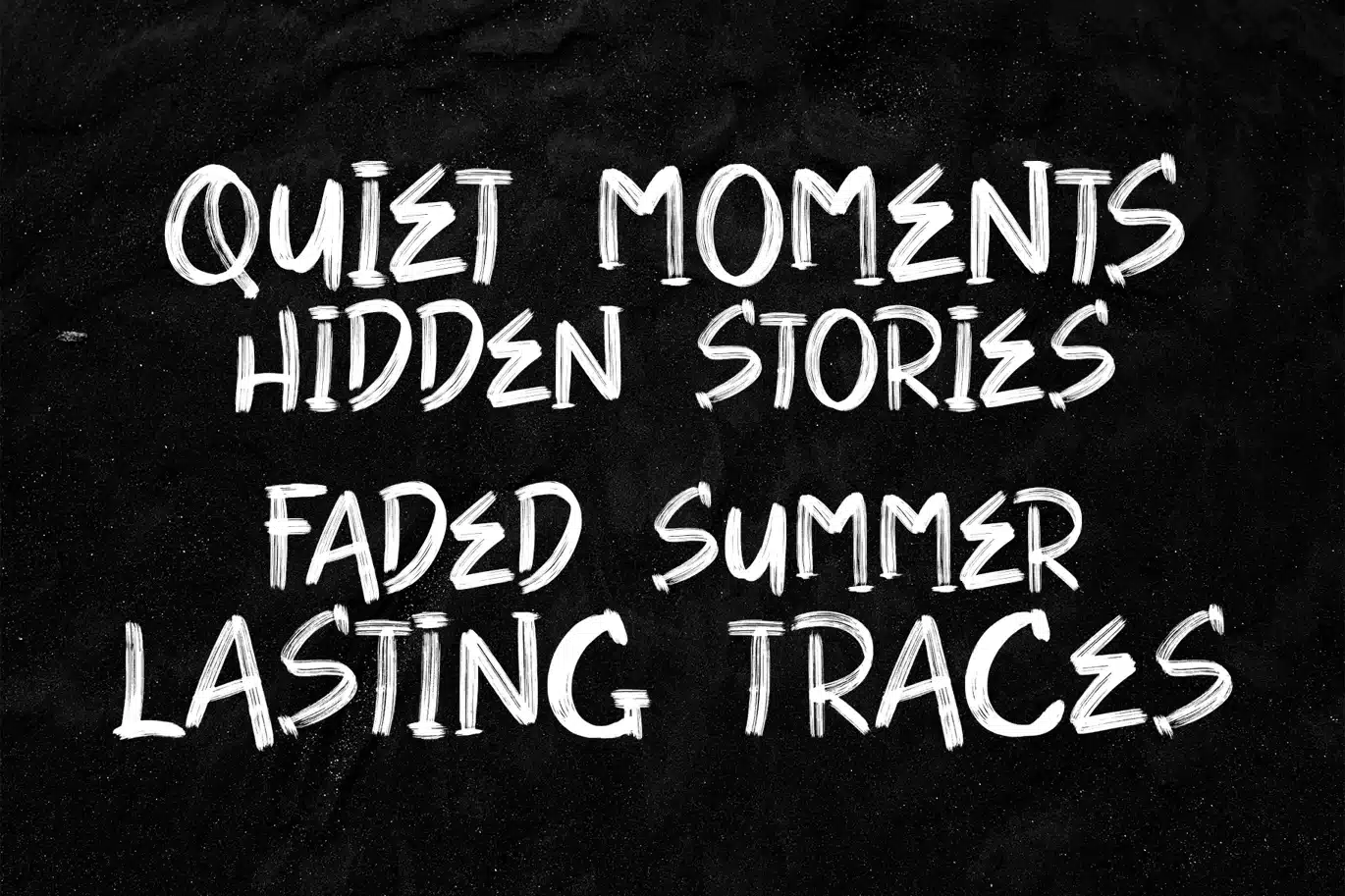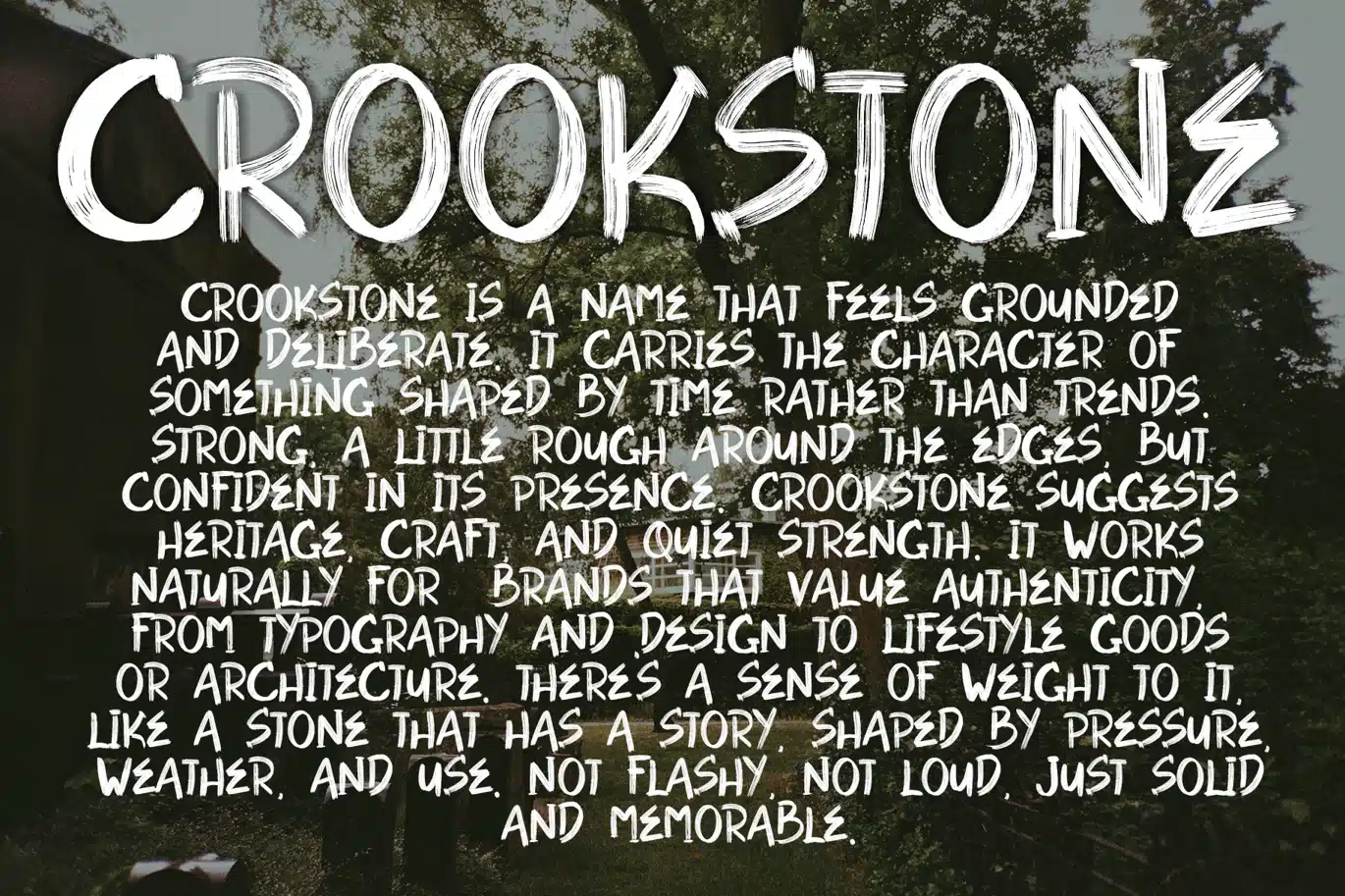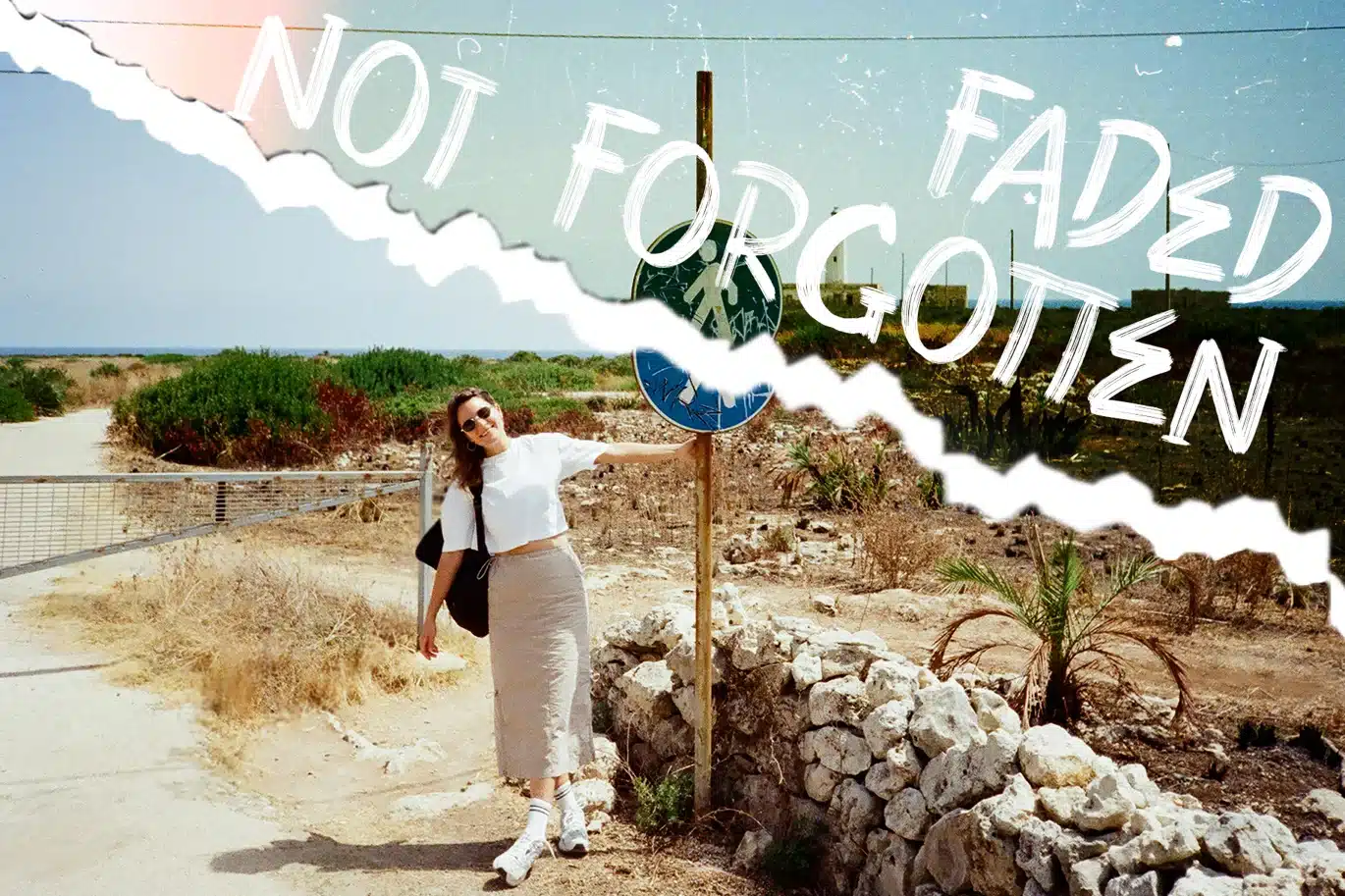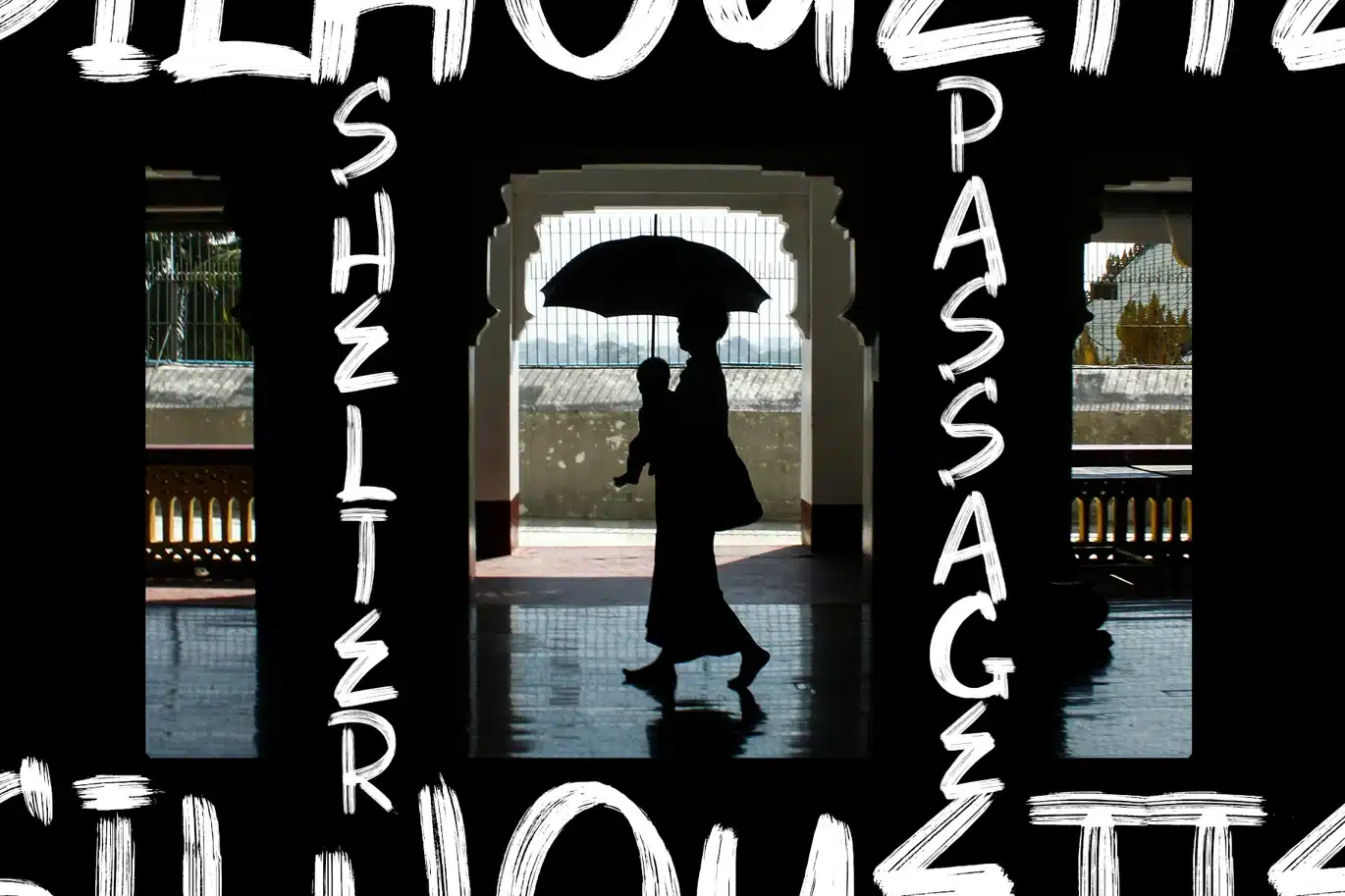
Jasperon Font: Unique Brush for Modern Logos
Jasperon is a unique brush font with bold, dry-brush strokes that feel raw, confident, and handmade. The texture gives your words instant energy, while the letter shapes stay clear enough for real branding work. If you need a typeface that looks premium but still has attitude, the Jasperon font hits that sweet spot.
Use the Jasperon font for luxury logo concepts when you want a modern, editorial edge. It also works great for food branding like café logos, street-food, sauce logo, coffee bags, and menu headlines, because the brush texture adds flavor and personality without extra graphics. For sports designs, the Jasperon font is perfect for event posters, training quotes, and social media highlight covers, especially when you want strong impact in a single word.
Jasperon pairs nicely with a clean sans or a minimal modern serif, so you can balance the wild brush style with a polished brand system. The result is a look that feels modern, unique, and logo-ready across print, and digital.